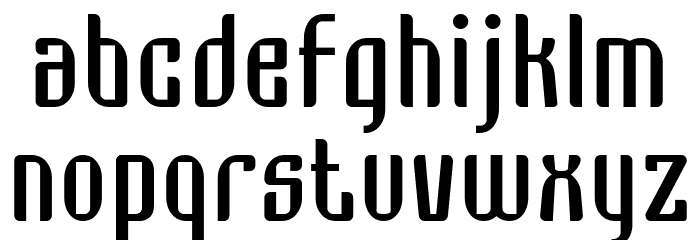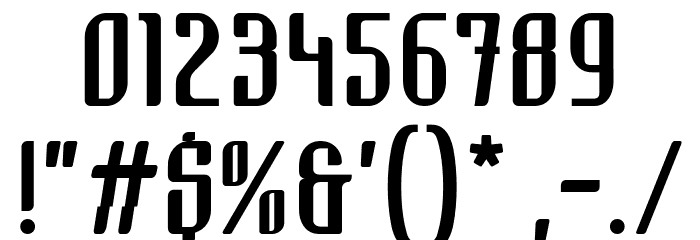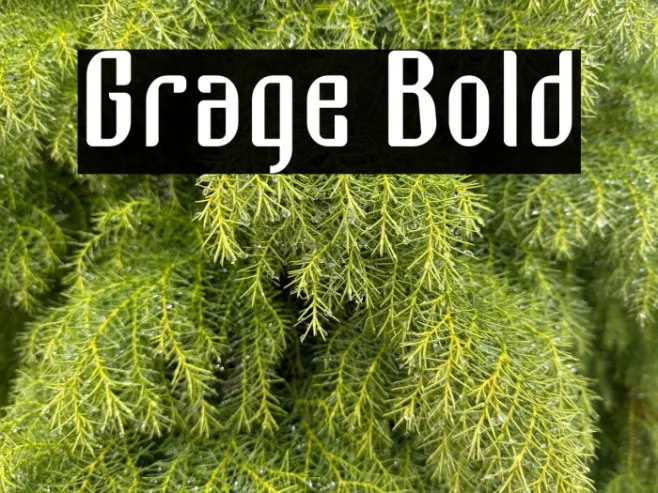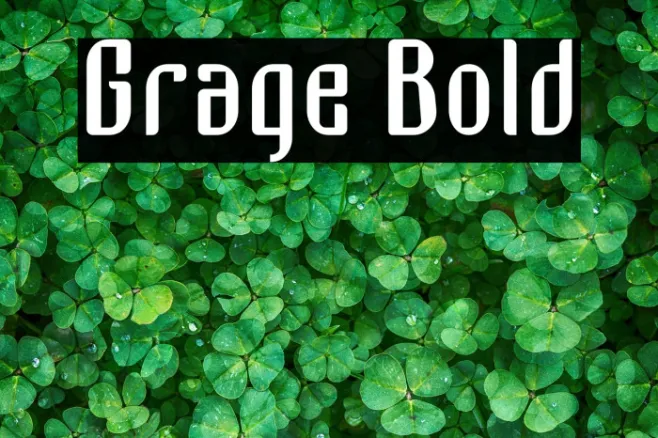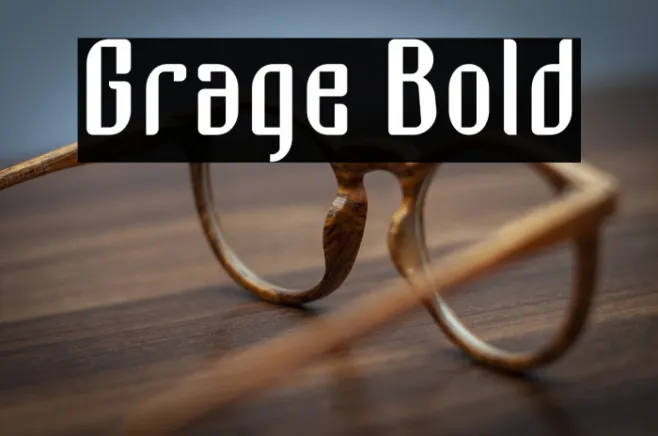
Grage Bold Font
This font features a bold, modern design with a distinctive geometric structure. The characters are tall and narrow, giving a condensed appearance that is both sleek and stylish. The uppercase and lowercase letters maintain a consistent height, contributing to a uniform look. The numerals and special characters are designed to match the overall aesthetic, providing a cohesive visual experience. The font's clean lines and minimalistic approach make it suitable for contemporary design projects.
A bold, modern font with a geometric and condensed style.
- Proposed Projects: Ideal for branding, advertising, posters, and modern web design.